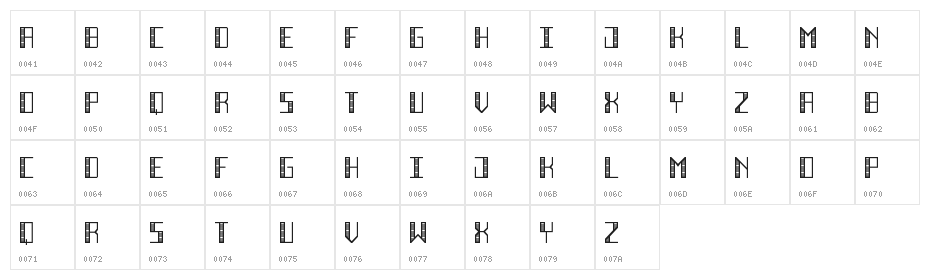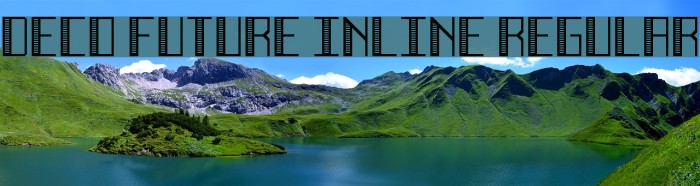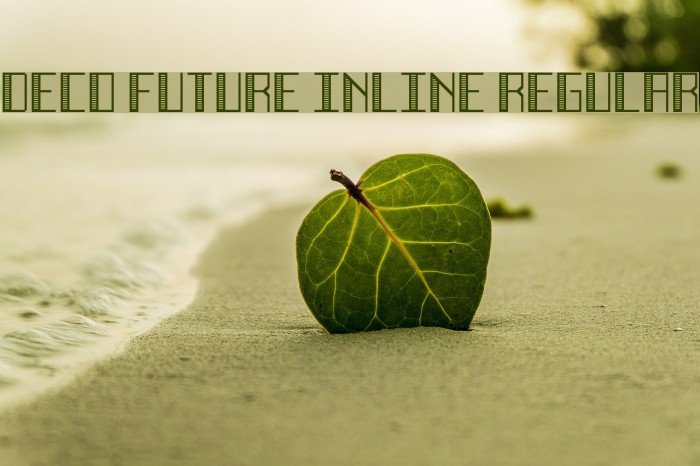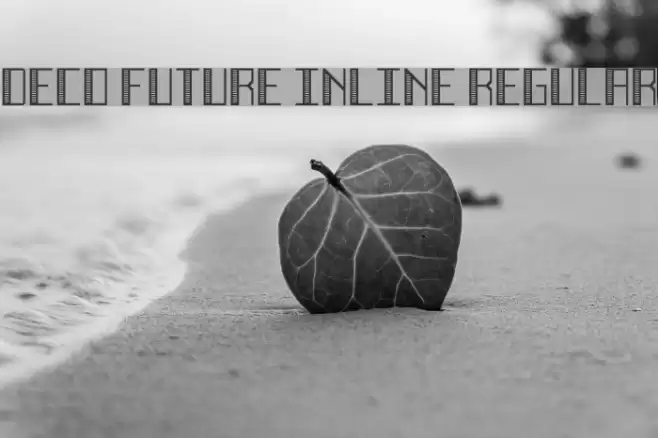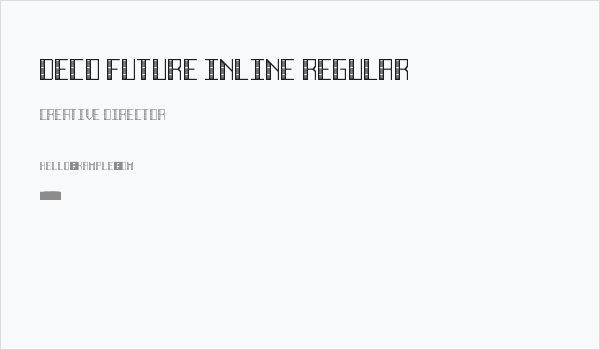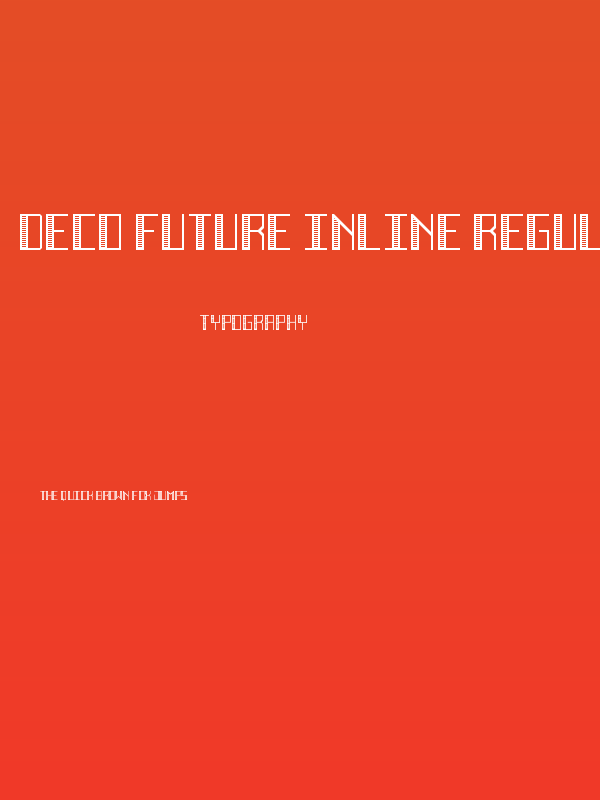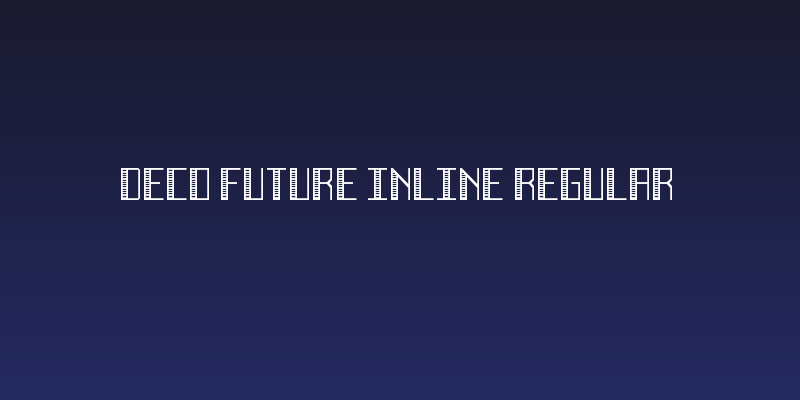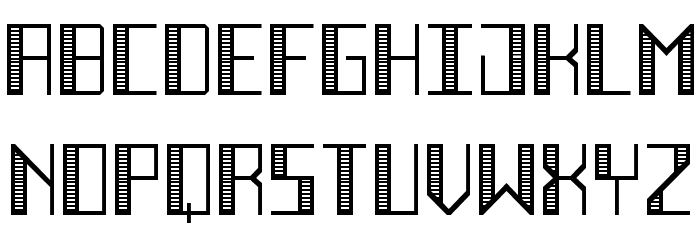
Deco Future Inline Regular Font
Deco Future Inline Regular Description
This font features a unique inline design with a futuristic and geometric aesthetic. The characters are constructed with a bold, linear framework, incorporating vertical inline details that create a sense of depth and dimension. The uppercase letters are uniform in height, while the lowercase letters maintain a consistent style, offering a cohesive look. The numerals and special characters follow the same design principles, ensuring versatility across various applications. The font's structure is both modern and decorative, making it suitable for eye-catching displays.
| Proposed Projects | Ideal for branding, posters, headlines, and any project requiring a modern, standout typeface. |